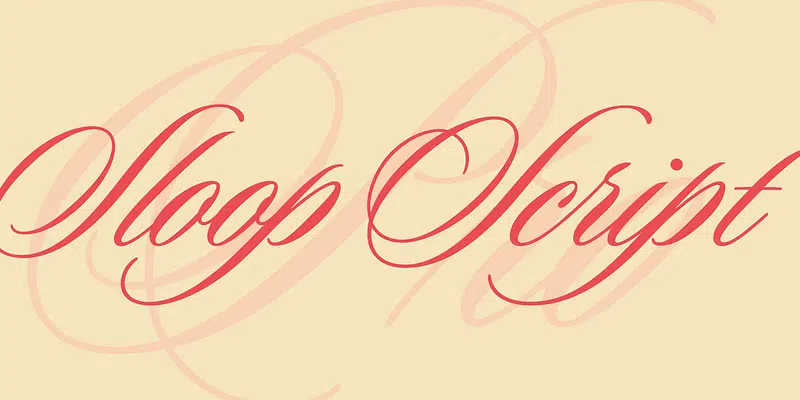
About Sloop Script Font
I first reached for Sloop Script Pro Font while working on a wedding invitation set that needed a classic, formal mood. The project called for something romantic but still controlled and readable. The usual calligraphy fonts felt either too stiff or too loose, so I went searching for a more refined option.
When I found Sloop Script Font, the flow of the curves and the sharp elegance of the strokes stood out right away. It had that old-world charm I wanted, without looking dated or cheap. I tested it across different layouts for that project, then later explored it deeper for a feature on Free Fonts Lab.
Font Style & Design Analysis
Sloop Script Font is a classic script typeface with a clear focus on formal, calligraphic elegance. It follows a strong slanted rhythm and a distinctive copperplate flavour. The strokes feel smooth yet deliberate, with high contrast between thick and thin parts. It looks tailored for refined typography, not casual handwriting.
The font family is widely known from the work of Richard Lipton and has become a reference point for many high-end script designs. You can feel the careful drawing in every curve. This is not a rough, quick digital script. It carries the attitude of traditional penmanship translated into a polished, professional font style.
The letterforms have long sweeping ascenders, tight loops, and elegant terminals that connect fluidly in most settings. Spacing is fairly compact, which helps build a dense, luxurious texture in headlines. In small sizes, the high contrast can reduce legibility, so I avoid using it for body text. Its strength lies in large titles, logos, and short names where you can appreciate each curve and the script rhythm. As a script typeface, it brings drama and grace but needs space and careful line breaks to really breathe.
Where Can You Use Sloop Script Font?
I find Sloop Script Font works best in projects that need formality and ceremony. Wedding invitations, event stationery, certificates, wine labels, and luxury branding are natural fits. When you set it large on a clean layout, the flourishes and contrast become strong design elements on their own.
On screens, I usually keep it for headlines, hero text, and logo marks. In small UI labels or long paragraphs, the details become hard to read and the script flow feels cramped. For print, it looks beautiful on textured paper with lots of white space. Pairing it with a simple serif or sans-serif typeface helps keep the visual identity grounded and modern.
When I design brand marks with Sloop Script Pro Font, I often adjust tracking slightly to open up the word shape. I also avoid all caps, as they break the natural script rhythm. It pairs nicely with clean geometric sans fonts in menus, brochures, and packaging, where Sloop carries the emotional tone and the companion font handles the information.
For me, Sloop Script Pro Font is a tool I reach for when I need serious elegance and a sense of tradition. It demands thoughtful use, but if you give it space and the right setting, it rewards you with a very refined, expressive script voice.